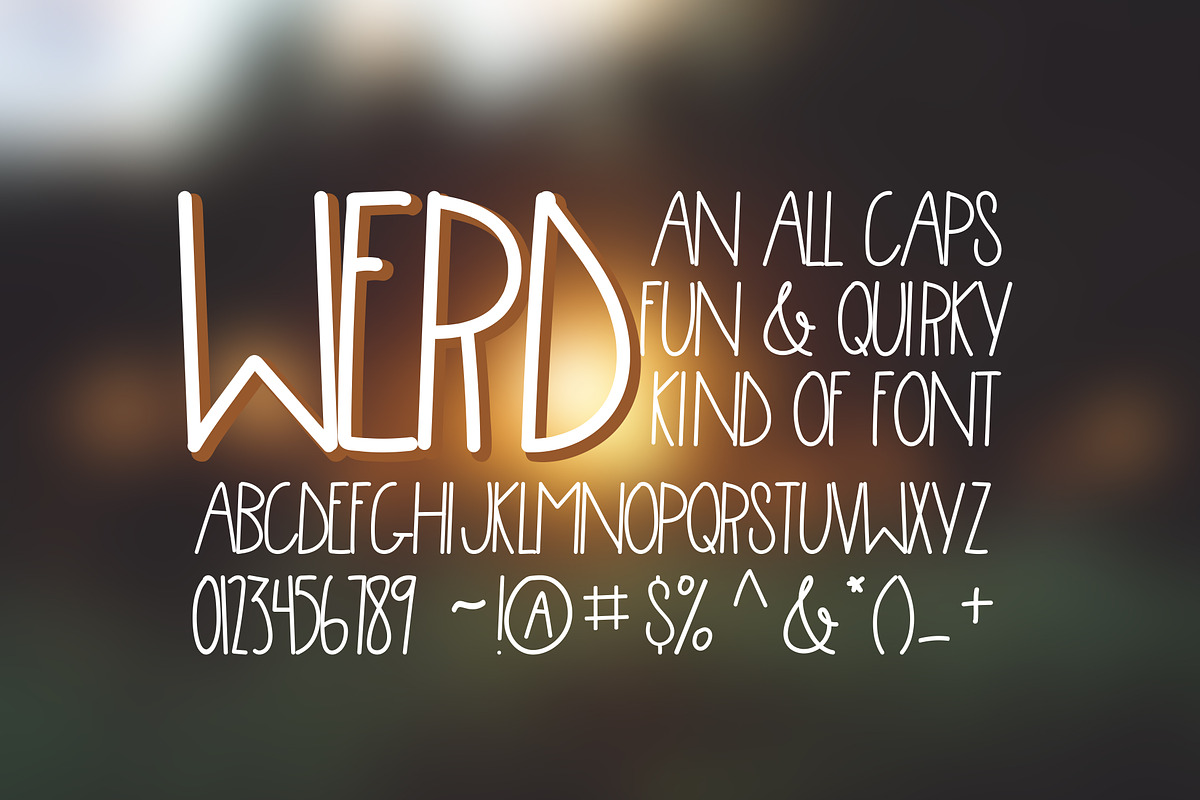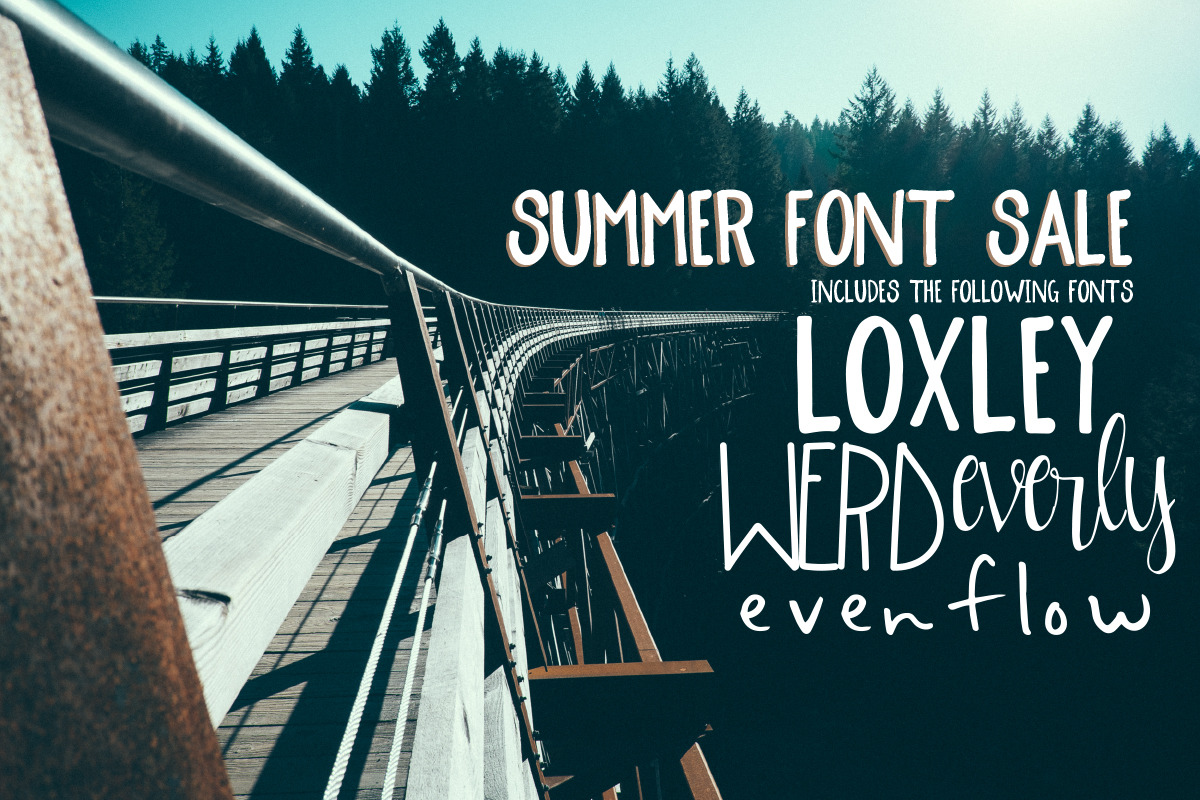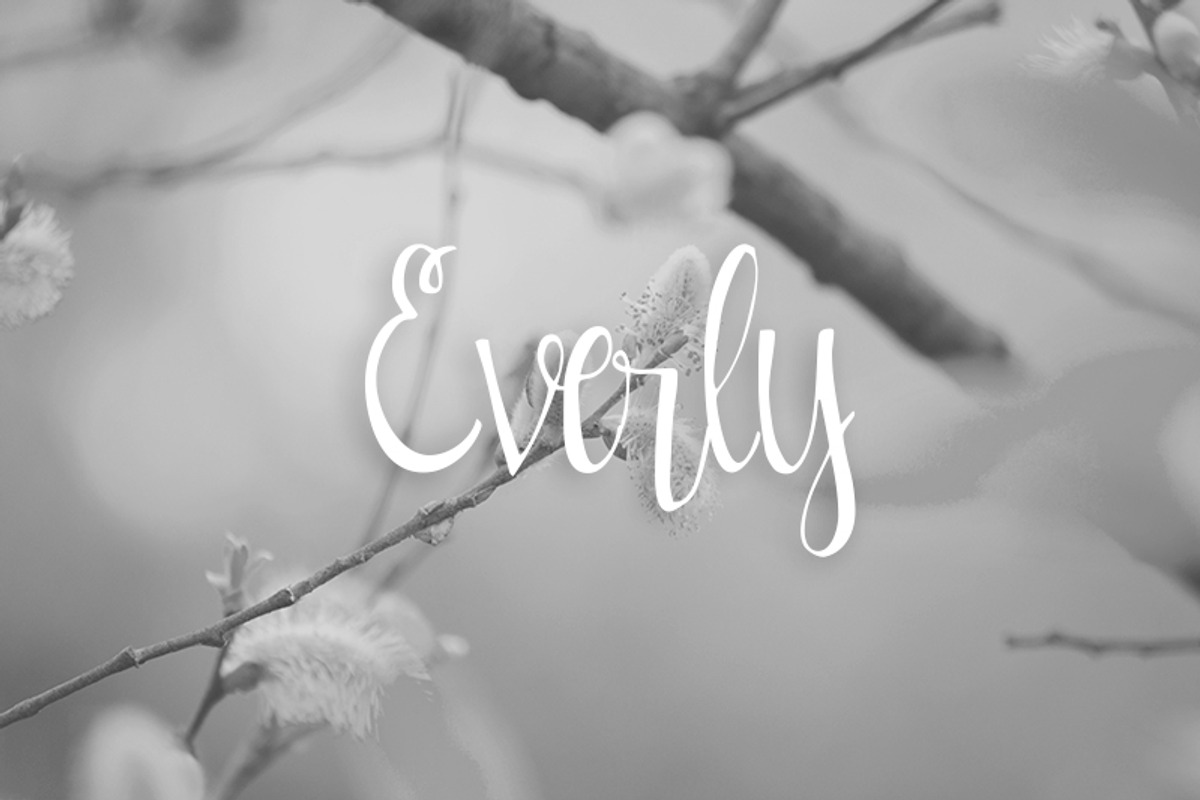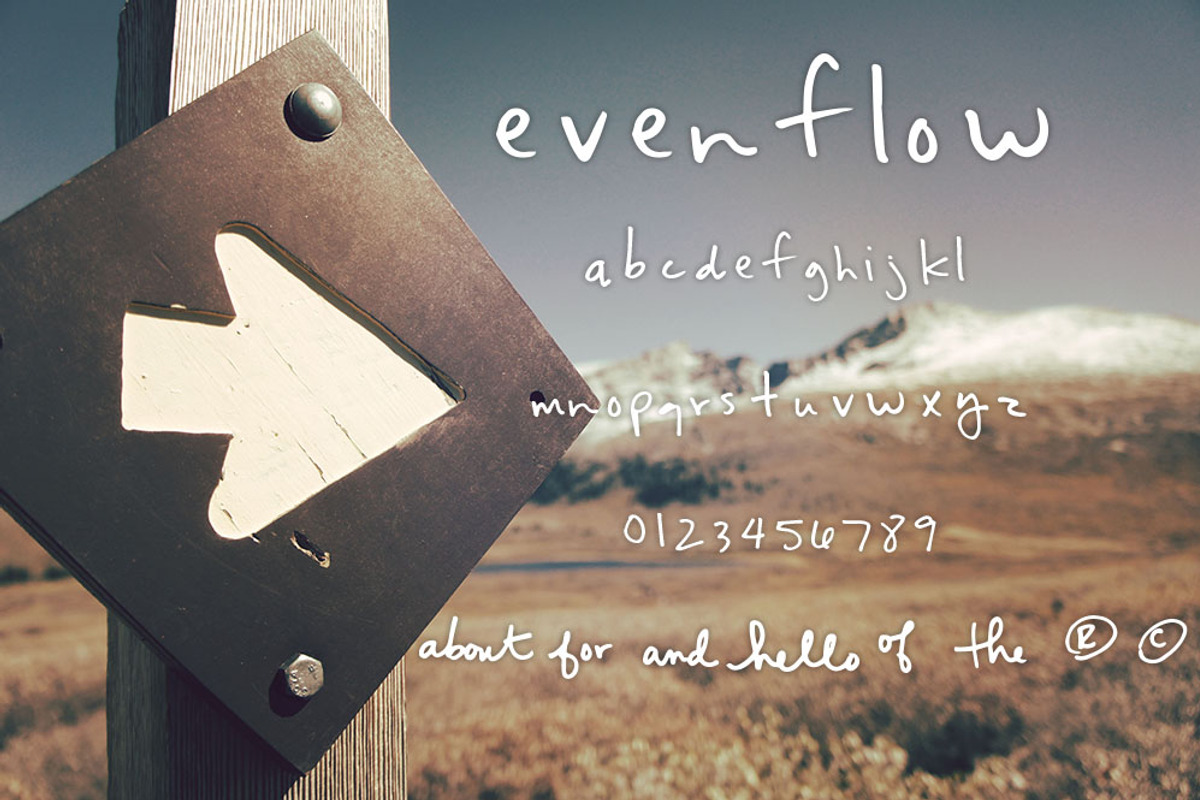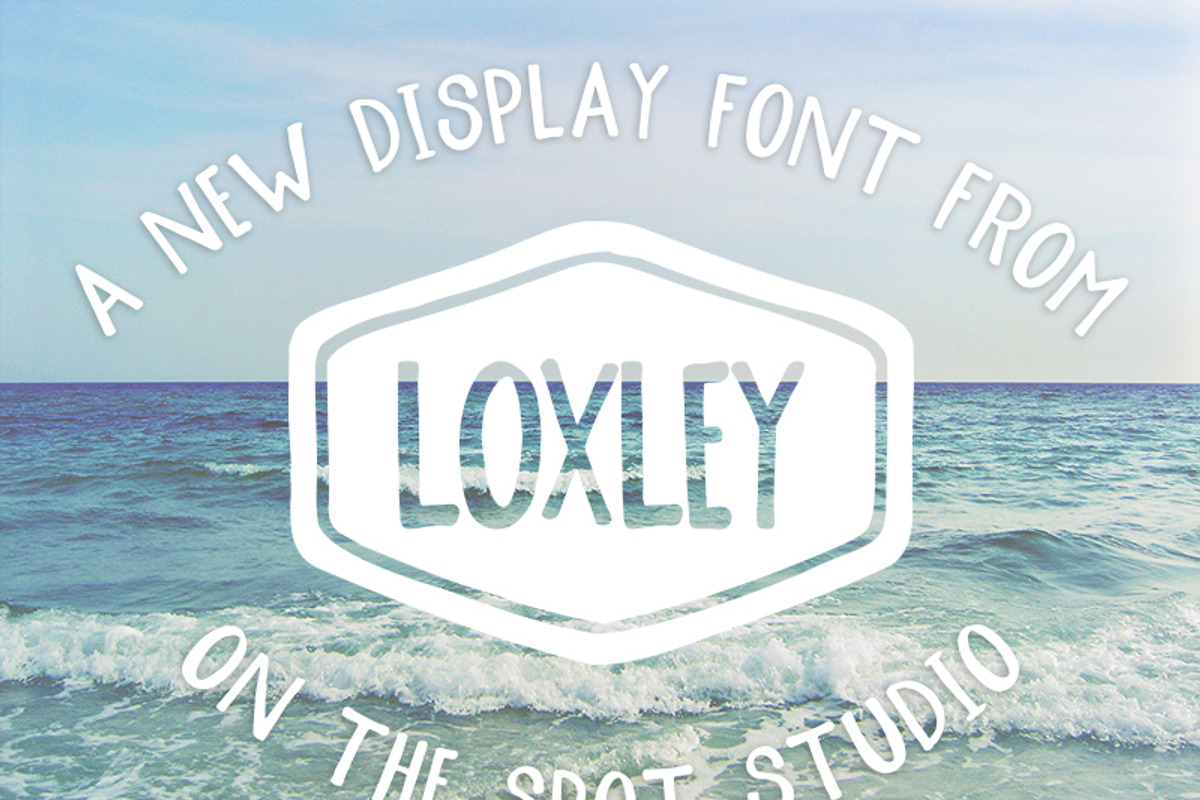
Summer Font Sale
Summer Font Sale by OnTheSpotStudio is a font selected for branding, posters, packaging, typography.
- Includes an UNRELEASED font "Evenflow" an all lowercase journaling font.
- Evenflow Regular
- Everly Regular
- Loxley Caps Regular
- Werd Regular
Summer Font Sale by OnTheSpotStudio fits naturally into Branding, posters, packaging, typography.